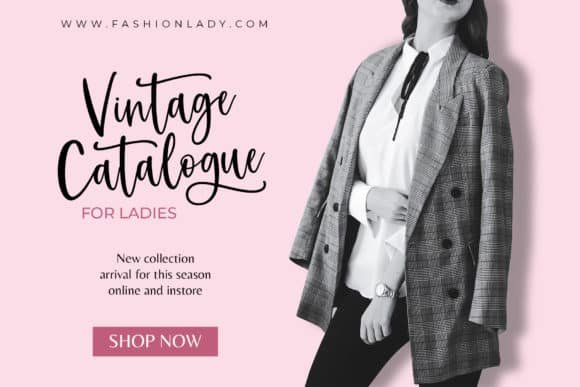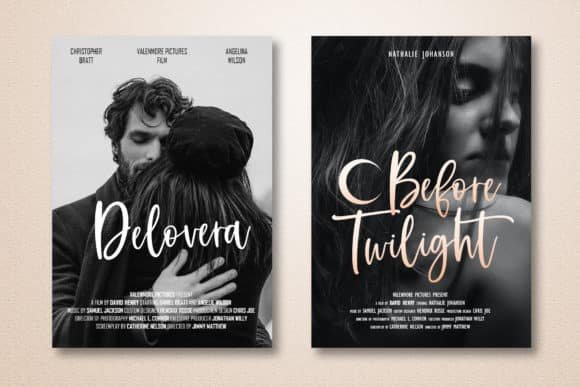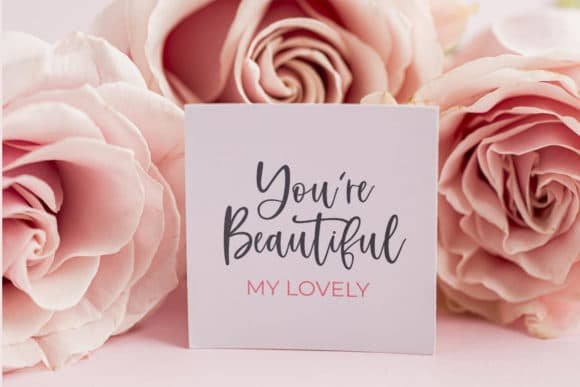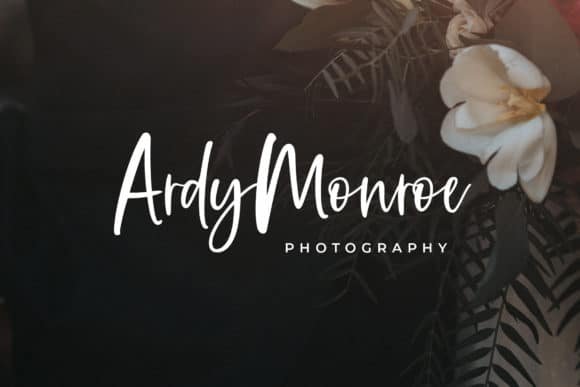
Juliantine Font
Juliantine is an elegant and flowing handwritten font. It is PUA encoded, which means you can access all of the glyphs and swashes with ease! It maintains its classy calligraphic influences while feeling contemporary and fresh.